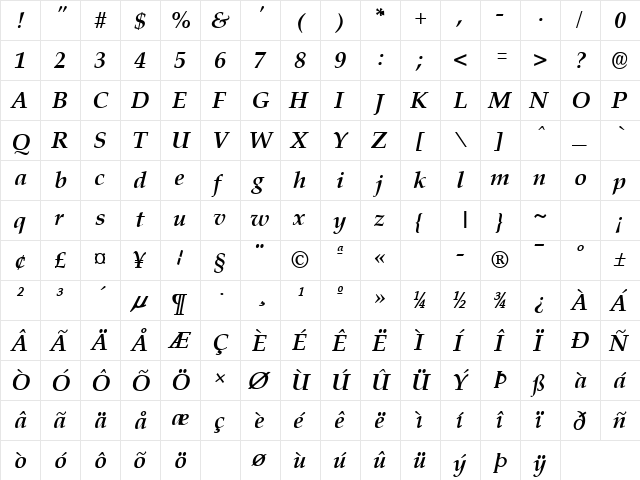
GE Palladian Bold Italic Font Preview
GE Palladian Bold Italic
Design Context for GE Palladian Typeface
GE Palladian takes a measured approach to typography — its balanced proportions and neutral character make it a reliable workhorse for both digital and print work. The slanted form adds forward momentum and visual energy. Its bold stroke weight gives it real presence on the page.
Pro Tip: Try GE Palladian for annotation and caption copy alongside an upright companion — the contrast in angle creates a dynamic but ordered typographic system.